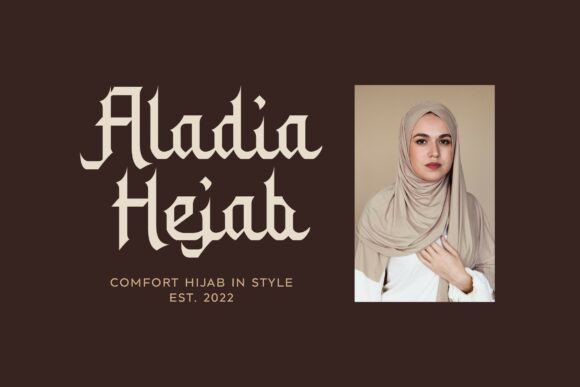
Kulaefy Font: A Modern Islamic Typeface for Elegant Designs
The Kulaefy Font is a contemporary Islamic typeface that seamlessly blends geometric precision with the flowing forms of Arabic calligraphy. This modern font is designed to create a unique balance between tradition and contemporary design, making it perfect for a variety of applications, from Eid and Ramadan campaigns to halal food and travel branding.
What is Kulaefy Font?
Kulaefy Font is a modern Islamic font that draws inspiration from the rich heritage of Arabic calligraphy. Its bold yet elegant strokes create a refined and sophisticated look that is perfect for designers looking to add a touch of Middle Eastern flair to their work. The font’s geometric precision ensures that it remains legible and versatile, making it suitable for a wide range of design projects.
Key Features of Kulaefy Font
- Geometric Precision: Kulaefy Font boasts precise geometric lines that ensure clarity and legibility, making it perfect for both digital and print applications.
- Elegant Strokes: The font’s bold yet elegant strokes are inspired by Arabic calligraphy, adding a touch of sophistication and refinement to any design.
- Balanced Design: Kulaefy Font strikes a perfect balance between tradition and contemporary design, making it ideal for designers looking to create unique and culturally relevant work.
Use Cases for Kulaefy Font
Kulaefy Font is a versatile typeface that can be used in a variety of design projects, including:
Eid and Ramadan Campaigns
Kulaefy Font is perfect for Eid and Ramadan campaigns, adding a touch of elegance and sophistication to any design. Its bold yet refined strokes create a sense of celebration and festivity, making it ideal for promotional materials, social media graphics, and more.
Halal Food and Travel Branding
For designers working on halal food and travel branding projects, Kulaefy Font offers a unique opportunity to add a touch of Middle Eastern flair to packaging, logos, and marketing materials. Its geometric precision and elegant strokes create a sophisticated look that is sure to appeal to target audiences.
Editorial Headlines and Posters
Kulaefy Font is also perfect for editorial headlines, posters, and invitations, adding a touch of refinement and elegance to any design. Its bold yet legible strokes make it easy to read, even at large sizes.
Social Content and Artistic Projects
For designers working on social content and artistic projects that feature an Islamic cultural theme, Kulaefy Font offers a unique opportunity to add a touch of authenticity and cultural relevance. Its elegant strokes and geometric precision create a sophisticated look that is sure to engage audiences.
Benefits of Using Kulaefy Font
There are many benefits to using Kulaefy Font in your design projects, including:
Cultural Relevance
Kulaefy Font is designed specifically with Islamic cultural themes in mind, making it a great choice for designers looking to create culturally relevant work.
Elegance and Sophistication
The font’s elegant strokes and geometric precision create a sophisticated look that is sure to elevate any design.
Versatility
Kulaefy Font is a versatile typeface that can be used in a wide range of design projects, from print and digital applications to packaging and branding.
Legibility
The font’s geometric precision ensures that it remains legible, even at small sizes, making it perfect for body text and captions.
Tips for Using Kulaefy Font
Here are a few tips for using Kulaefy Font in your design projects:
Pair with Neutral Backgrounds
Kulaefy Font looks best on neutral backgrounds, such as white or light gray. This allows the font’s elegant strokes to take center stage.
Experiment with Colors
Kulaefy Font can be used in a variety of colors, from bold and bright to muted and pastel. Experiment with different colors to find the perfect look for your design.
Use for Headlines and Titles
Kulaefy Font is perfect for headlines and titles, adding a touch of elegance and sophistication to any design.
Don’t Overuse
While Kulaefy Font is a beautiful typeface, it’s best to use it sparingly. Overusing the font can make your design look cluttered and overwhelming.
Kulaefy Font is a modern Islamic typeface that offers a unique blend of geometric precision and elegant strokes. Its versatility, legibility, and cultural relevance make it a great choice for designers looking to create elegant and sophisticated designs. Whether you’re working on Eid and Ramadan campaigns, halal food and travel branding, or artistic projects that feature an Islamic cultural theme, Kulaefy Font is a great choice.